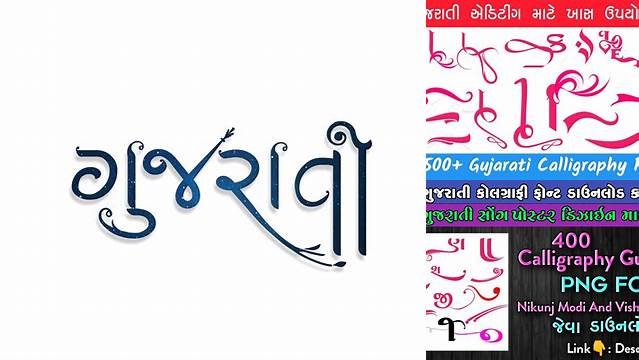
Gujarati Stylish Fonts: Free Generator & Download
Hey guys! Are you looking to spice up your Gujarati text with some stylish fonts? You've come to the right place! In this article, we'll explore everything about Gujarati stylish fonts, from where to find a free generator to how to download and use them. Let's dive in!
1. Understanding Gujarati Font Styles
Before we jump into generators and downloads, let's understand what makes a Gujarati font stylish. Gujarati script, derived from Devanagari, has its own unique curves and characteristics. Stylish fonts play with these elements to create visually appealing designs. Think of bold fonts for headings, elegant fonts for invitations, and playful fonts for social media. Understanding these nuances will help you choose the perfect font for your project. Consider things like readability, the overall tone you want to convey, and the intended audience. A stylish font should enhance your message, not distract from it.
2. Free Online Gujarati Font Generators
The internet is brimming with free online Gujarati font generators. These tools allow you to type in your text and preview it in various font styles. Some popular options include Fontvilla, LingoJam, and various text generator websites. While these are handy for quick designs, remember that the font quality might vary. Many of these generators are more about creating stylized text images rather than downloadable font files. Always check the terms of use and licensing before using any generated text for commercial purposes. Explore different generators to find one that offers the styles you prefer and the output format you need. Experimenting is key to discovering hidden gems!
6. Using Gujarati Fonts in Graphic Design
Now for the fun part – using your Gujarati fonts in graphic design! When choosing a font, consider the project's overall aesthetic. A modern, sans-serif font might be perfect for a website, while a traditional, calligraphic font could enhance a wedding invitation. Experiment with different font pairings to create visual interest. Pay attention to kerning, tracking, and leading to ensure readability. Don't be afraid to mix and match fonts, but always do it tastefully. Remember, typography is an art form, so play around and see what works best for your design. High-quality design involves understanding the subtleties of typography and how it contributes to the overall message.
7. Font Pairing Tips for Gujarati Typography
Font pairing can be tricky, but here are a few tips for Gujarati typography. Pair a bold headline font with a simpler body text font. Use contrasting font styles to create visual hierarchy. Limit yourself to two or three fonts per design to avoid clutter. Consider the mood and tone you want to convey. A playful font might pair well with a handwritten-style font, while a formal font might work better with a classic serif font. Use online resources and font pairing tools for inspiration. Don't be afraid to experiment and break the rules, but always prioritize readability and visual appeal.
8. The Importance of Readability in Gujarati Fonts
Readability is paramount when selecting Gujarati fonts. A stylish font is useless if no one can read it! Choose fonts that are clear and easy to decipher, especially for body text. Avoid overly decorative or ornate fonts for long paragraphs. Consider the font size and line height to ensure comfortable reading. Test your designs on different devices and screen sizes to ensure they are legible. Remember, the primary goal of typography is to communicate effectively, so prioritize readability above all else. A well-designed font should be both visually appealing and highly functional.
9. Gujarati Font Trends in 2024
Staying up-to-date with Gujarati font trends can give your designs a fresh, modern look. In 2024, we're seeing a rise in bold, geometric fonts, as well as hand-drawn and script fonts. Experiment with variable fonts that offer different weights and styles in a single file. Explore the use of vibrant colors and gradients in typography. Look to leading designers and studios for inspiration, and don't be afraid to try new things. The world of typography is constantly evolving, so stay curious and keep exploring new possibilities.
10. Creating Your Own Gujarati Font
Feeling ambitious? Why not try creating your own Gujarati font? Font design software like Glyphs, FontLab Studio, and BirdFont allows you to create custom fonts from scratch. This is a complex process that requires a deep understanding of typography, but it can be incredibly rewarding. Start by sketching out your basic letterforms and then refine them using vector graphics software. Pay attention to spacing, kerning, and other technical details. Test your font thoroughly to ensure it is readable and functional. Creating your own font is a great way to express your creativity and contribute to the world of Gujarati typography.
11. Exploring Gujarati Calligraphy Styles
Gujarati calligraphy is an art form with a rich history. Explore different calligraphic styles, such as traditional pen-and-ink calligraphy, brush lettering, and modern digital calligraphy. Experiment with different tools and techniques to find your own unique style. Take workshops and classes to learn from experienced calligraphers. Calligraphy can add a touch of elegance and sophistication to your designs. Incorporating calligraphic elements into your typography can create visually stunning results.
12. Gujarati Fonts for Social Media Graphics
Gujarati fonts play a crucial role in creating engaging social media graphics. Choose fonts that are eye-catching and easy to read on small screens. Use bold fonts for headlines and captions to grab attention. Experiment with different color combinations and font pairings. Consider the overall brand aesthetic when selecting fonts. Use typography to convey the message and evoke emotions. A well-chosen font can make your social media graphics stand out from the crowd.
13. Gujarati Fonts for Website Design
Selecting the right Gujarati fonts for your website is essential for creating a positive user experience. Choose fonts that are readable and visually appealing. Consider the overall design of the website and select fonts that complement the aesthetic. Use different fonts for headings and body text to create visual hierarchy. Ensure that the fonts are optimized for web use and load quickly. Test the website on different devices and screen sizes to ensure readability. A well-designed website with good typography can enhance the user experience and improve engagement.
14. Gujarati Fonts for Print Design
Gujarati fonts are also important for print design projects. Choose fonts that are suitable for printing and will reproduce well. Consider the paper stock and printing process when selecting fonts. Use high-resolution fonts to ensure sharp and clear text. Pay attention to kerning and tracking to improve readability. Test print your designs to ensure that the fonts look good in print. A well-designed print project with good typography can create a lasting impression.
15. How to Choose the Right Gujarati Font for Your Project
Choosing the right Gujarati font involves considering several factors. Think about the project's purpose, target audience, and overall aesthetic. Consider the font's readability, style, and compatibility with other design elements. Experiment with different fonts and font pairings. Get feedback from others to ensure that the font is well-received. Don't be afraid to try new things and break the rules, but always prioritize readability and visual appeal. The perfect font can elevate your design and effectively communicate your message.
16. Tips for Using Gujarati Fonts Effectively
To use Gujarati fonts effectively, pay attention to details like font size, line height, and letter spacing. Avoid using too many different fonts in a single design. Use fonts that complement each other and create visual harmony. Consider the overall layout and design when selecting fonts. Use typography to create visual interest and guide the viewer's eye. Test your designs on different devices and screen sizes to ensure readability. With careful attention to detail, you can use Gujarati fonts to create stunning and effective designs.
17. Exploring Different Weights and Styles of Gujarati Fonts
Gujarati fonts come in various weights and styles, from light and airy to bold and impactful. Experiment with different weights and styles to find the perfect fit for your project. Use bold fonts for headlines and captions to grab attention. Use lighter weights for body text to ensure readability. Consider the overall mood and tone you want to convey when selecting fonts. A well-chosen font weight can enhance the design and effectively communicate your message.
18. Common Mistakes to Avoid When Using Gujarati Fonts
Avoid common mistakes when using Gujarati fonts like using too many fonts, choosing unreadable fonts, or ignoring kerning and tracking. Ensure that the fonts are properly installed and compatible with your design software. Don't use fonts that are outdated or cliché. Always test your designs to ensure that the fonts look good on different devices and screen sizes. By avoiding these mistakes, you can create professional and effective designs with Gujarati fonts.
19. The Future of Gujarati Typography
The future of Gujarati typography is bright, with new fonts and technologies constantly emerging. Expect to see more variable fonts, AI-powered font design tools, and innovative typography techniques. Explore the use of virtual and augmented reality in typography. Stay curious and keep experimenting with new ideas. The world of typography is constantly evolving, so embrace the change and be ready to adapt. The future of Gujarati typography is full of exciting possibilities.
20. Resources for Learning More About Gujarati Typography
There are many resources available for learning more about Gujarati typography. Explore online courses, workshops, and tutorials. Read books and articles on typography and design. Follow leading designers and typographers on social media. Attend design conferences and events. Join online communities and forums to connect with other designers. With dedication and effort, you can become a master of Gujarati typography.
21. Gujarati Font Licensing Explained
Understanding Gujarati font licensing is essential to avoid legal issues. Most fonts come with a license agreement that specifies how the font can be used. Some fonts are free for personal use but require a commercial license for business purposes. Always read the license agreement carefully before using a font. If you're unsure about the licensing terms, contact the font designer or foundry for clarification. Using a font without the proper license can result in legal penalties.
22. Converting Gujarati Fonts to Different Formats
Sometimes, you may need to convert Gujarati fonts to different formats. This can be done using font conversion software or online tools. Common font formats include TTF, OTF, and WOFF. Ensure that the font is properly converted and retains its quality. Test the converted font to ensure that it works correctly in your design software. Converting fonts can be useful for ensuring compatibility with different devices and platforms.
23. Optimizing Gujarati Fonts for Web Performance
Optimizing Gujarati fonts for web performance is important for ensuring fast loading times. Use web-optimized font formats like WOFF and WOFF2. Compress the font files to reduce their size. Use font-display CSS property to control how the font is rendered. Consider using a content delivery network (CDN) to serve the fonts. Test the website's performance to ensure that the fonts are loading quickly. A well-optimized website with fast-loading fonts can improve user experience and SEO.
24. Creating Stylish Gujarati Text Effects
Creating stylish Gujarati text effects can add visual interest to your designs. Experiment with different effects like shadows, gradients, outlines, and textures. Use design software like Adobe Photoshop or Illustrator to create these effects. Consider the overall design and aesthetic when creating text effects. Don't overdo the effects, as they can distract from the text itself. A well-executed text effect can enhance the design and effectively communicate your message.
25. The Role of Typography in Gujarati Culture
Typography plays a significant role in Gujarati culture, reflecting its history, traditions, and values. Gujarati script is used in various forms of art, literature, and design. Different fonts and typography styles are used to convey different messages and emotions. Typography is also used in religious texts and ceremonies. Understanding the cultural significance of typography can help you create more meaningful and impactful designs.
26. Finding Inspiration for Gujarati Font Designs
Finding inspiration for Gujarati font designs can come from various sources. Explore traditional Gujarati art and crafts. Look at examples of Gujarati calligraphy and typography. Study the work of leading designers and typographers. Visit museums and galleries to see examples of typography in different contexts. Draw inspiration from nature, architecture, and everyday life. With a keen eye and a creative mind, you can find inspiration for Gujarati font designs everywhere.
27. Collaborating with Gujarati Font Designers
Collaborating with Gujarati font designers can be a great way to create unique and custom fonts for your projects. Look for designers who specialize in Gujarati typography and have a portfolio that aligns with your aesthetic. Communicate your vision and requirements clearly. Provide feedback and guidance throughout the design process. Be respectful of the designer's expertise and creative input. A successful collaboration can result in a beautiful and functional font that perfectly meets your needs.
28. Building a Gujarati Font Library
Building a Gujarati font library can be a valuable asset for any designer. Collect a variety of fonts that cover different styles, weights, and purposes. Organize your fonts into categories for easy browsing. Use font management software to keep track of your fonts. Regularly update your font library with new and interesting fonts. A well-curated font library can save you time and effort when working on design projects.
29. Maintaining Your Gujarati Font Collection
Maintaining your Gujarati font collection is important for ensuring that your fonts are organized, up-to-date, and accessible. Regularly back up your font files to prevent data loss. Remove any fonts that you no longer use. Organize your fonts into folders and categories. Use font management software to easily browse and activate fonts. Keeping your font collection well-maintained can save you time and frustration in the long run.
30. The Ethical Use of Gujarati Fonts